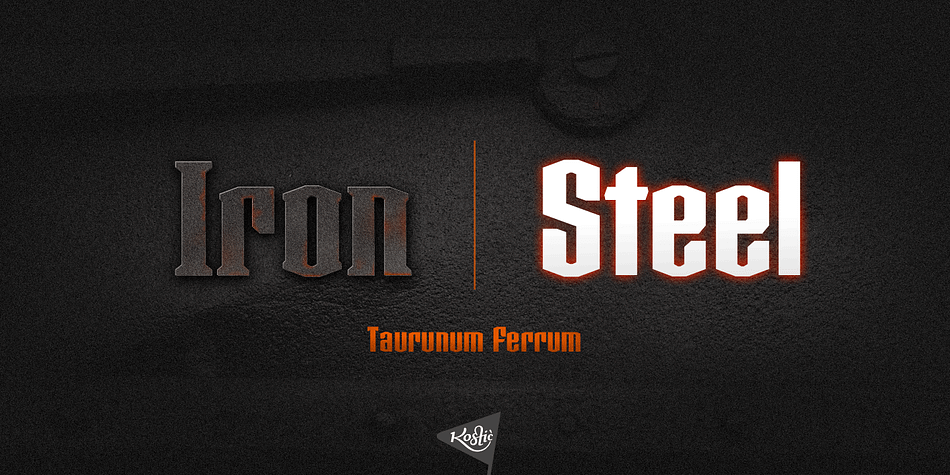
Taurunum Ferrum
Taurunum Ferrum is a display, display sans and display serif font family. This typeface has two styles and was published by Kostic Type Foundry.
Taurunum Ferrum is a version of Taurunum family, made to feel like it
It is ment to be used in a bold display setting where raw and strong look is a priority.
The Iron style has an medieval (blackletter) flavour, while Steel has more of a modern sans look.
Taurunum Ferrum is a version of Taurunum family, made to feel like it’s been cast in iron or cut out of steel plates. It is ment to be used in a bold display setting where raw and strong look is a priority. The Iron style has an medieval (blackletter) flavour, while Steel has more of a modern sans look. Taurunum Ferrum has a character set to support Western and Central European languages.